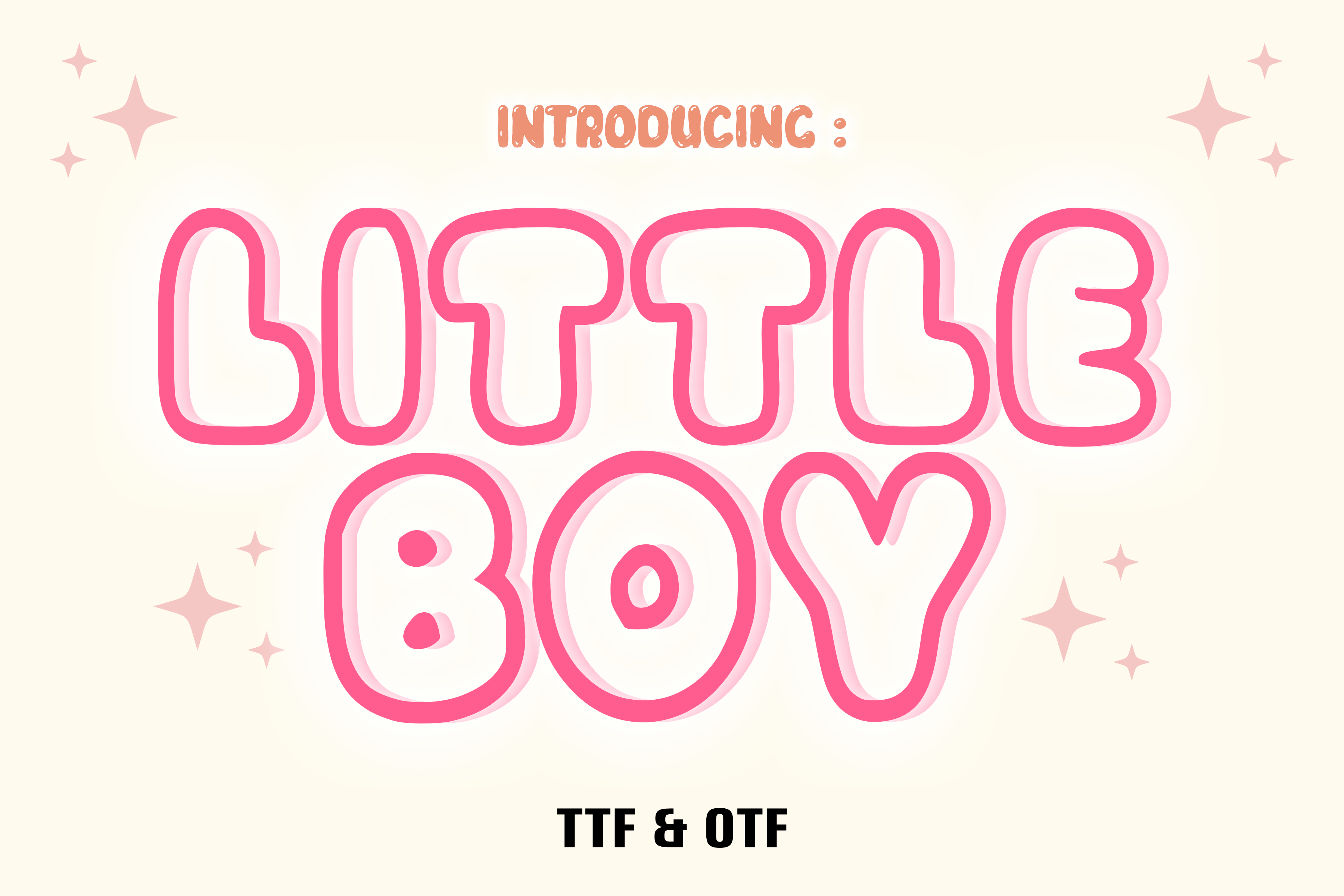
Little Boy - Baby Font Types
Little Boy is a fun outline font that adds a playful touch to your designs. Its cute characters dance with a cheerful spirit, giving your text a cheerful and energetic feel. Little Boy is a great choice to add a fun and cheerful touch to your projects. Perfect for logo design, social media, comics, magazines, books, advertisements, t-shirt printing, and more.